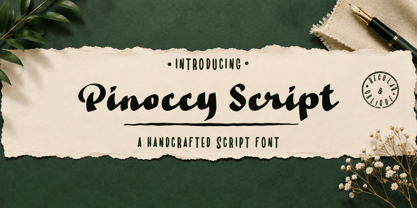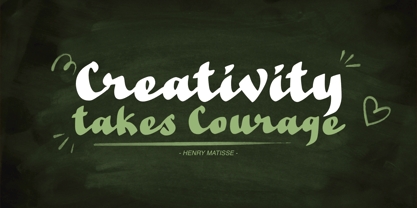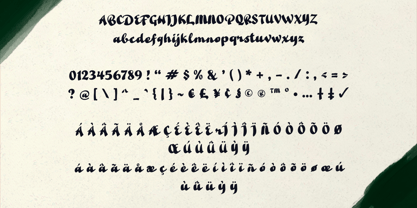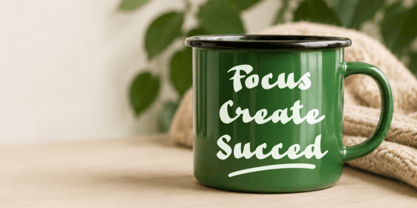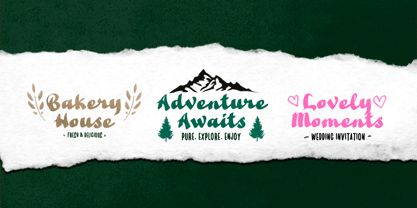
Pinoccy
by Letterytz CalliType
The Pinoccy Font Family was designed by Wahyu Eka Prasetya, Dian Angga Marytama and published by Letterytz CalliType. Pinoccy contains 2 styles and family package options. More about this family
Pinoccy Script – Bold Handcrafted Script Font
Pinoccy Script is a bold and playful handwritten script font designed to bring energy, personality, and charm into your creative projects. Featuring thick brush-inspired strokes and smooth flowing curves, this font delivers a strong visual presence while maintaining a warm and friendly handcrafted feel.
Carefully crafted with a lively baseline and expressive letterforms, Pinoccy Script is perfect for branding, logos, product packaging, quotes, social media posts, posters, merchandise, invitations, and modern typography designs. Its natural handwritten style creates an authentic and approachable appearance that instantly catches attention.
Pinoccy Script leans more toward a casual handwritten script rather than a creepy style. However, because of its bold and slightly dramatic curves, it can also work beautifully for playful vintage themes, retro posters, or fun Halloween-inspired designs when paired with the right colors and layouts.
The font comes with smooth connections and dynamic characters that make every word feel organic and stylish. Whether you are creating eye-catching branding or expressive display typography, Pinoccy Script adds creativity and confidence to every design.
Features:
✔ Handcrafted bold script style
✔ Smooth and natural letter connections
✔ Strong brush-inspired appearance
✔ Perfect for branding, logos, packaging, and social media
✔ Stylish handwritten aesthetic
✔ Multilingual support
✔ Available in Regular and Oblique styles
✔ Easy to use for modern and retro design themes
Pinoccy Script is the perfect choice for designers who want a bold handwritten font with character, warmth, and versatility.